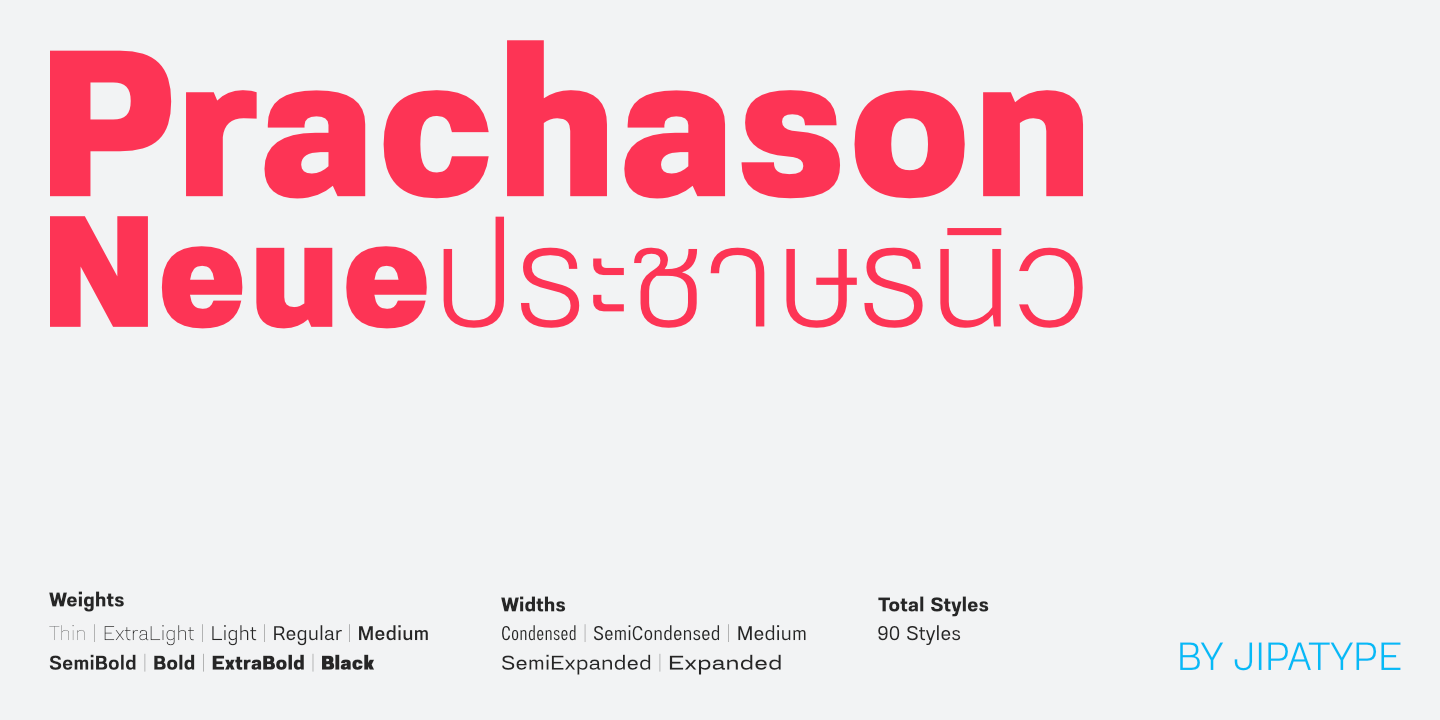
Prachason Neue Font is a modern sans-serif typeface that combines contemporary sophistication with geometric precision for versatile design applications. This font is available for commercial use and must be purchased for business applications. You can download it for free for testing purposes only.
Prachason Neue Font excels in numerous design applications including modern branding, corporate communications, digital interfaces, architectural signage, tech company logos, contemporary packaging, professional presentations, website headers, mobile applications, and innovative marketing campaigns. Its clean character makes it perfect for organizations seeking cutting-edge professionalism and modern visual identity.
What makes Prachason Neue Font so exciting is its perfect balance between geometric precision and contemporary warmth, featuring clean letterforms, optimized spacing, and modern styling that creates professional credibility while maintaining approachable accessibility. The font's contemporary aesthetic conveys innovation and reliability, making it ideal for forward-thinking organizations seeking to establish market leadership and technological sophistication.
The Prachason Neue Font family includes comprehensive weight variations: Thin, Light, Regular, Medium, Bold, Black, and their corresponding italic versions, plus condensed and extended options. Each family member maintains consistent contemporary relationships while offering different levels of emphasis, providing designers with extensive typographic flexibility for systematic modern communications.
This exceptional typeface represents the perfect synthesis of contemporary design principles and functional typography, making Prachason Neue Font Free Download an invaluable resource for modern designers. The font's geometric characteristics work exceptionally well in technology and corporate environments where innovation, clarity, and professional appeal are fundamental considerations.
Prachason Neue Font supports extensive international character sets including Western European, Eastern European, and Cyrillic scripts, plus comprehensive technical symbols and modern punctuation. Its advanced OpenType features ensure professional typography standards across global communications and multilingual digital applications worldwide.
Professional designers choose Prachason Neue Font for its reliability in contemporary communications, digital branding, and innovative design projects. The font's modern nature makes it particularly effective for technology companies, design agencies, consulting firms, and progressive organizations where contemporary appeal and professional sophistication are essential.
The font's contemporary sophistication and geometric elegance make it particularly suitable for tech startups, modern corporations, design studios, architectural firms, and innovative agencies. Its cutting-edge appeal ensures designs remain relevant and impactful across evolving technological trends.